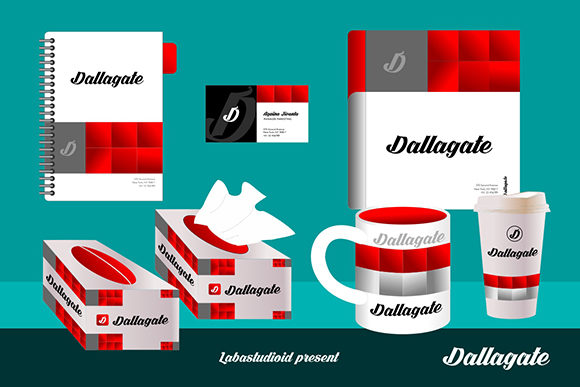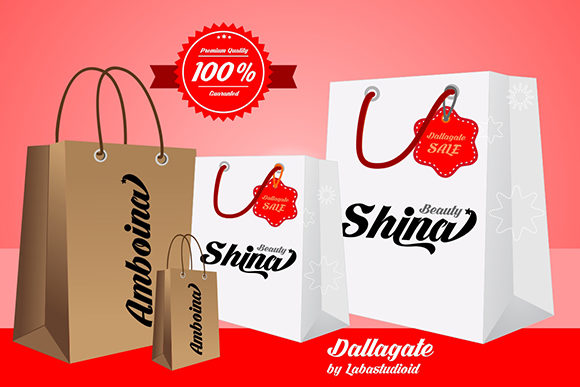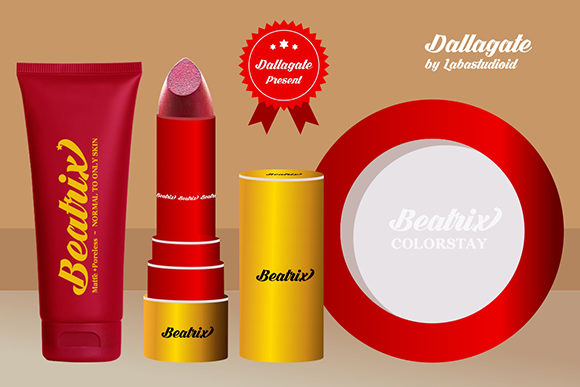
Introduction to Dallagate Font
Dallagate is an exquisite handwritten font, masterfully designed to become a true favorite.
Key Features of Dallagate Font
Why Choose Dallagate Font?
Dallagate Font offers exceptional quality and versatility, making it a valuable addition to your design toolkit. Whether you’re creating for personal projects or commercial use, Dallagate Font delivers professional results.